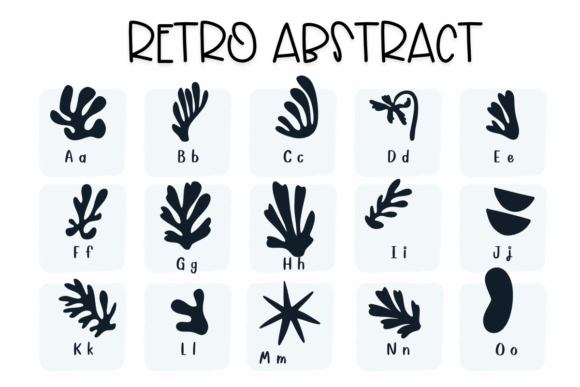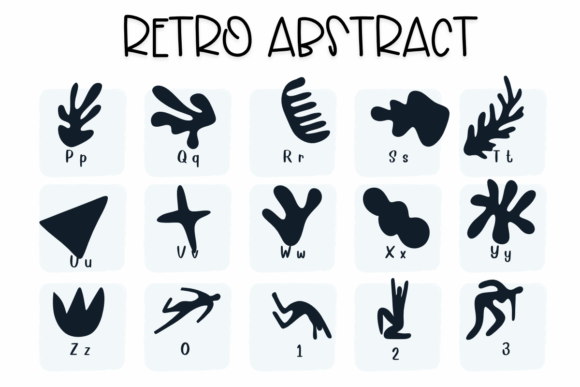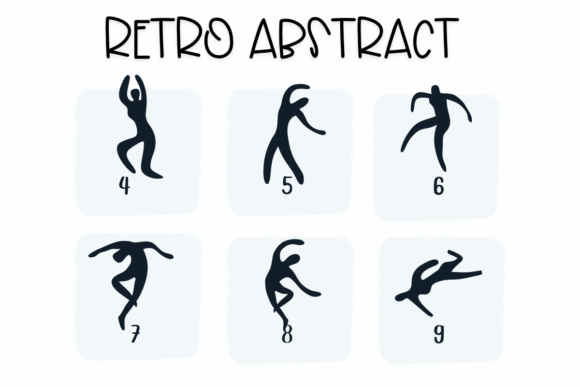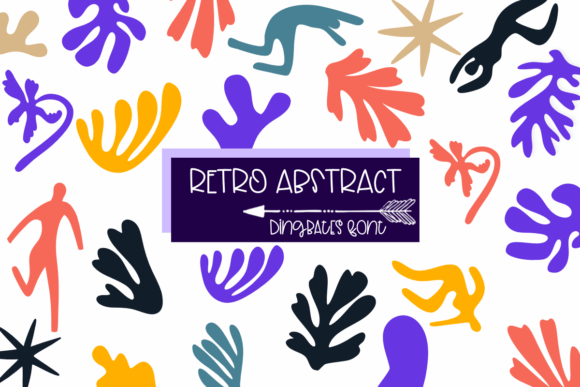
Introduction to Retro Abstract Font
Retro abstract is a dingbats font with theme with a sketch style.
This font can enhance your creative projects such as wedding invitations, DIY, crafts, decorations, logos, and many other creative ideas .
Key Features of Retro Abstract Font